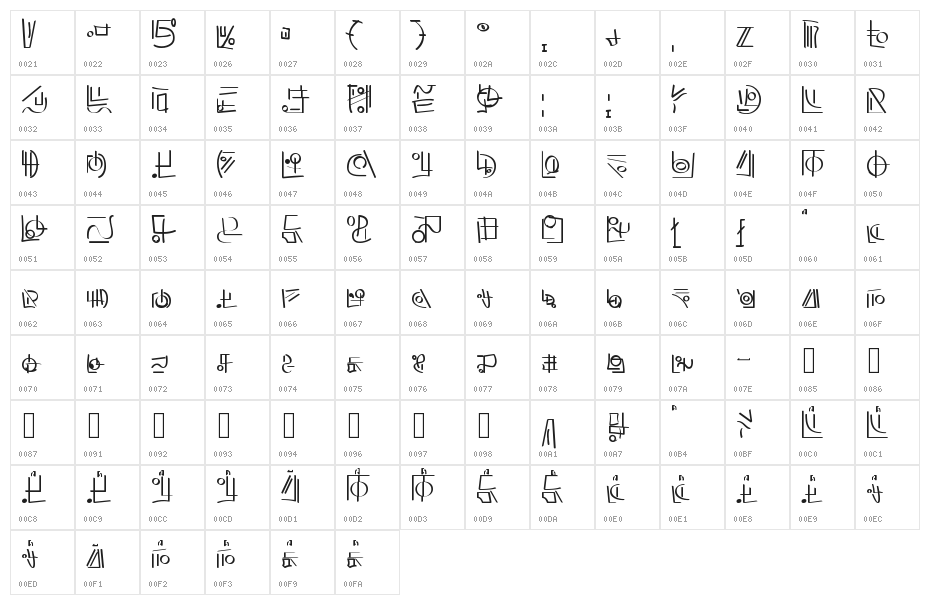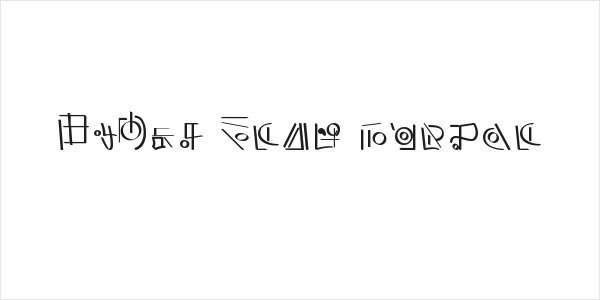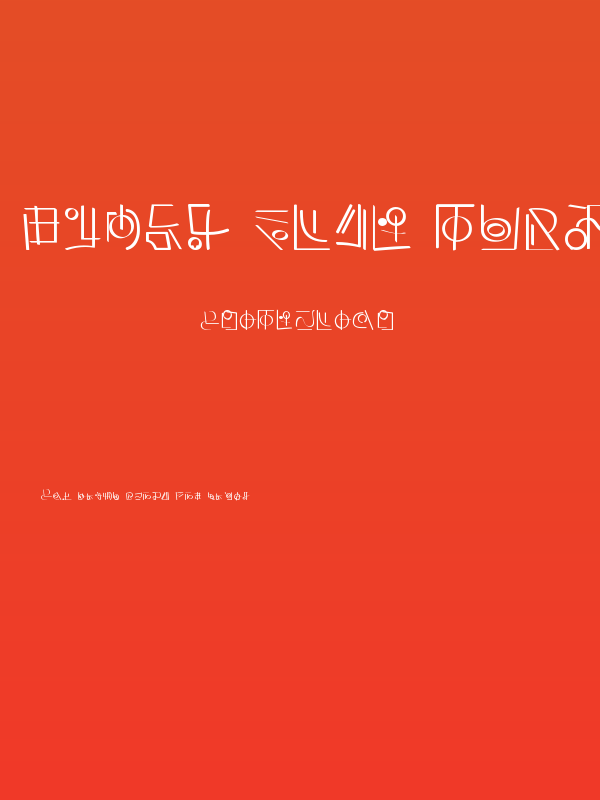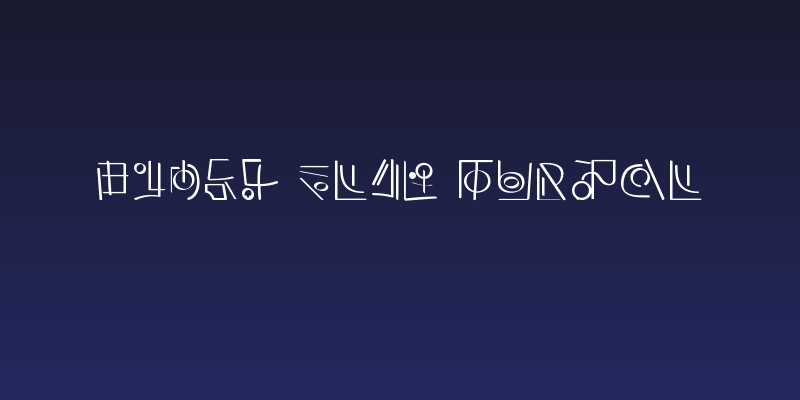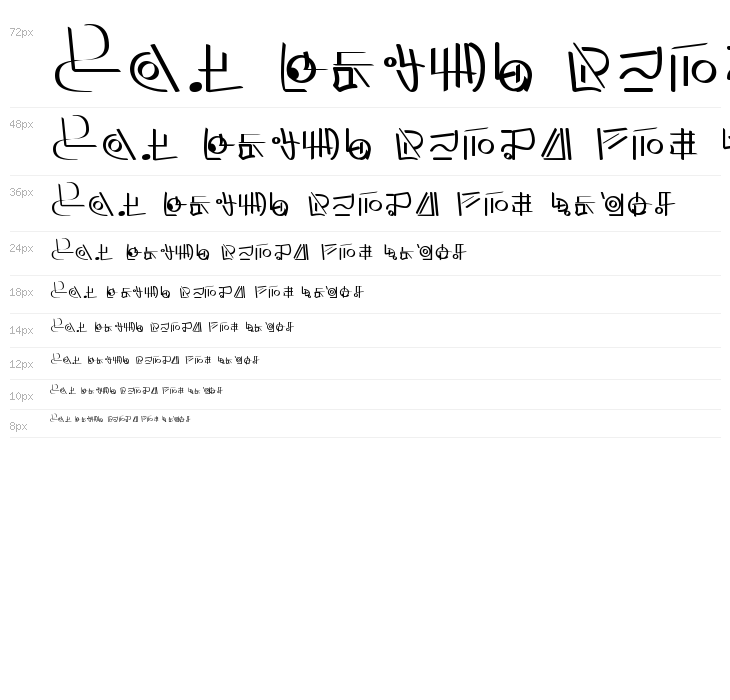
XiDus Lang ombwha Font
XiDus Lang ombwha Description
This font features a highly decorative and abstract style, resembling ancient scripts or symbolic languages. Each character is uniquely crafted with intricate lines and curves, giving it a mysterious and artistic appearance. The design incorporates a mix of geometric shapes and flowing lines, creating a sense of movement and complexity. The characters are bold and striking, making them stand out distinctly. This font is not meant for readability but rather for artistic expression or thematic design. Its unique style makes it suitable for projects that require a touch of the exotic or the enigmatic.
| Use Case | Logos, Artistic projects, Thematic designs |
| Proposed Projects | Ideal for artistic projects, fantasy themes, game design, or any creative work requiring a mysterious or ancient aesthetic. |